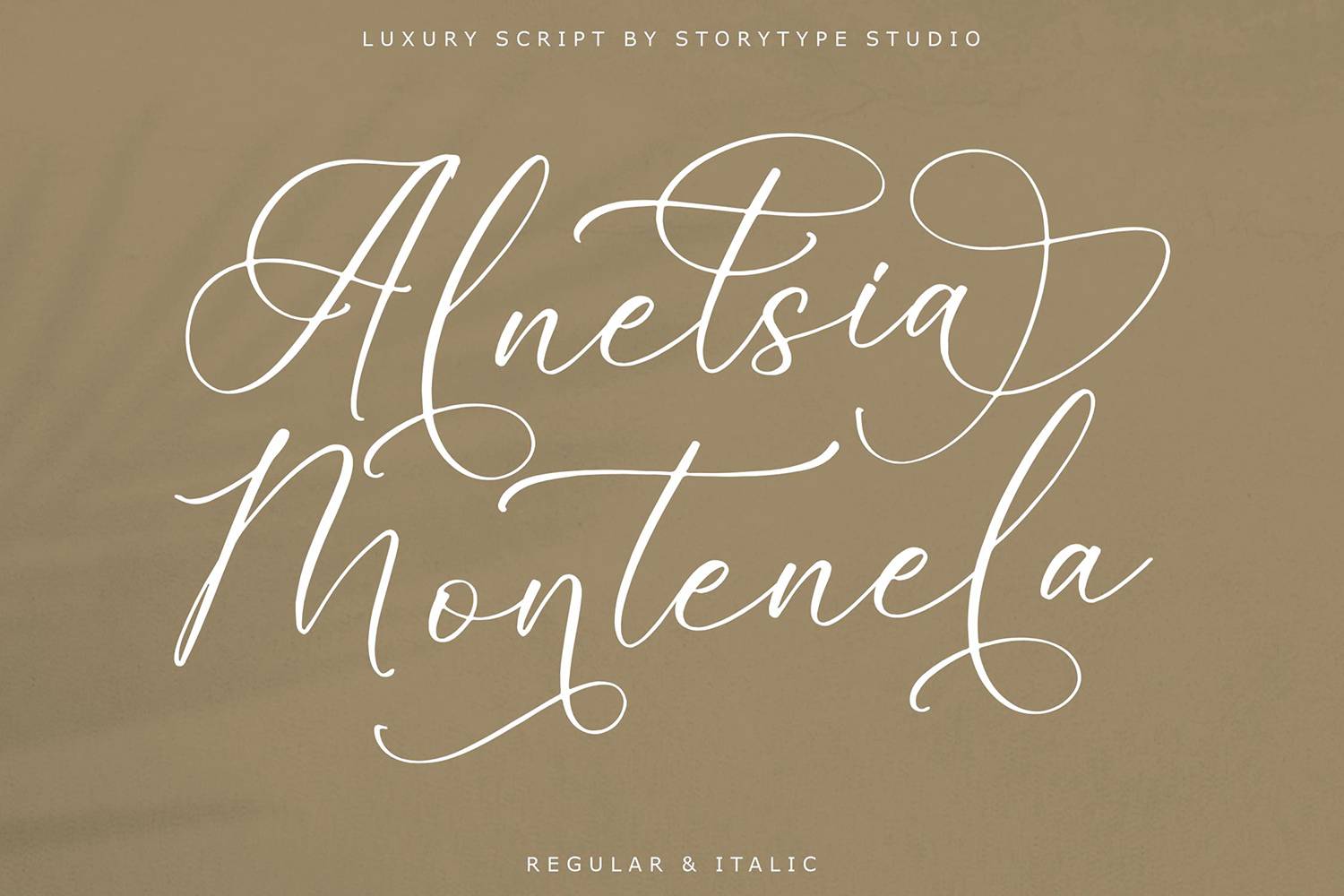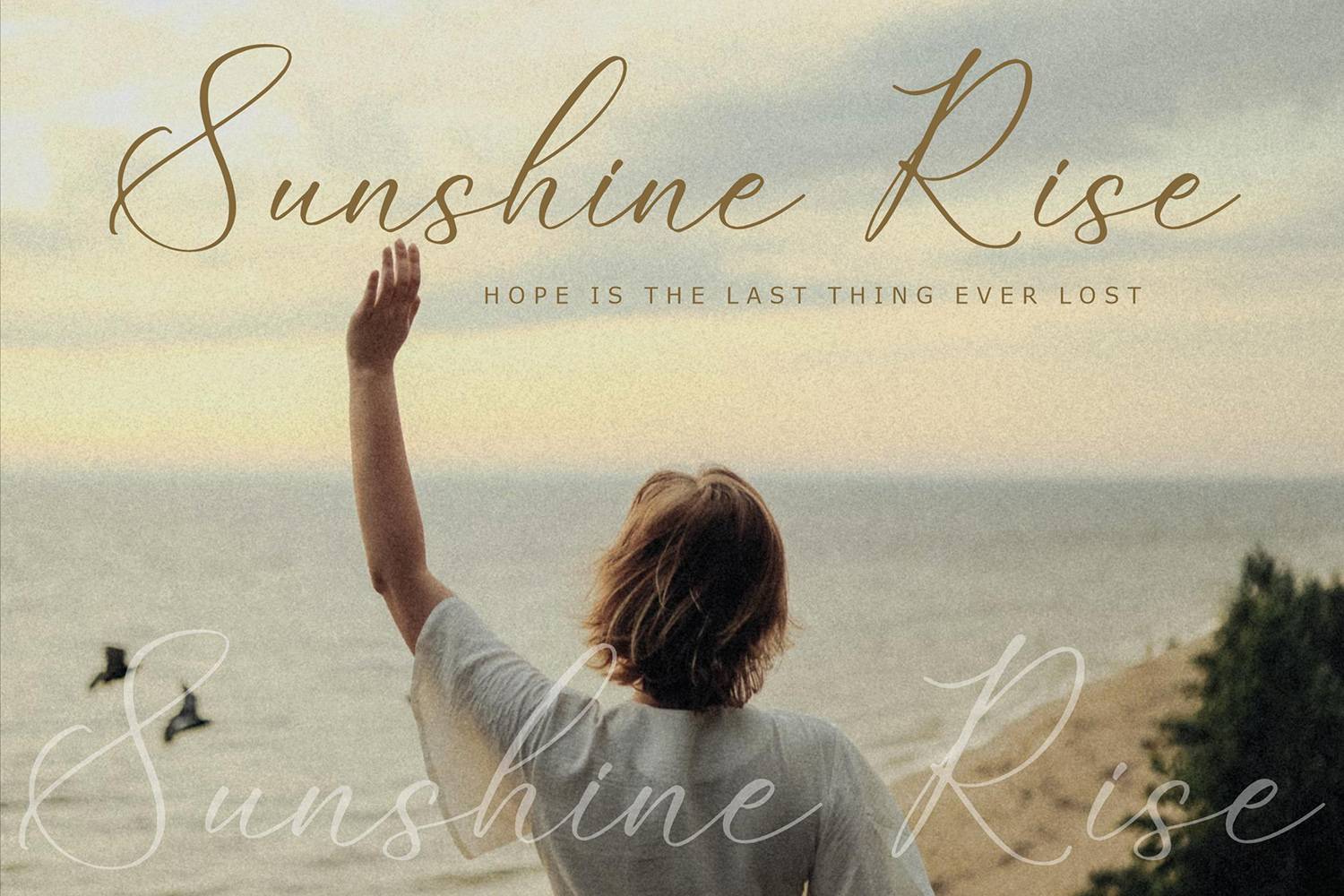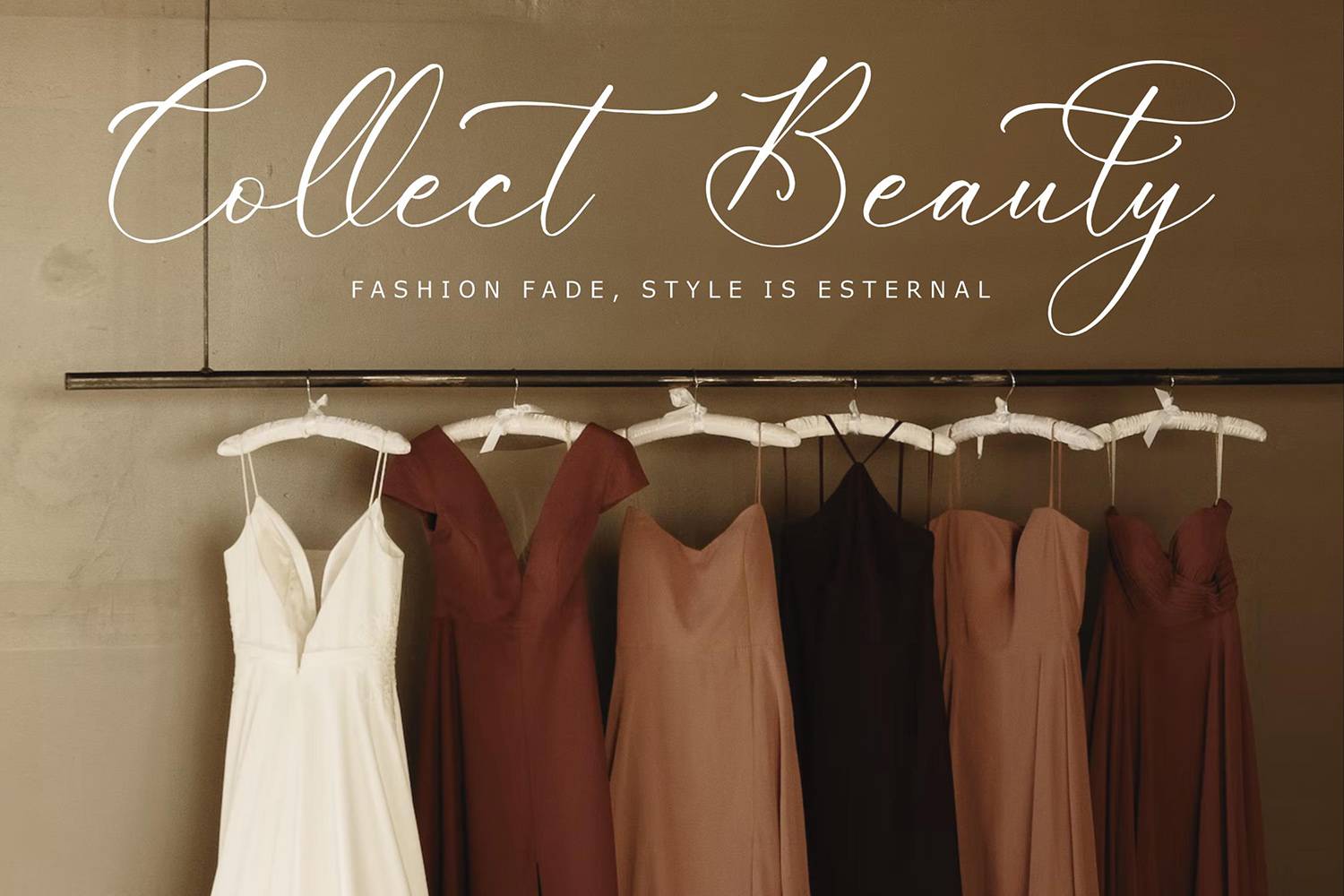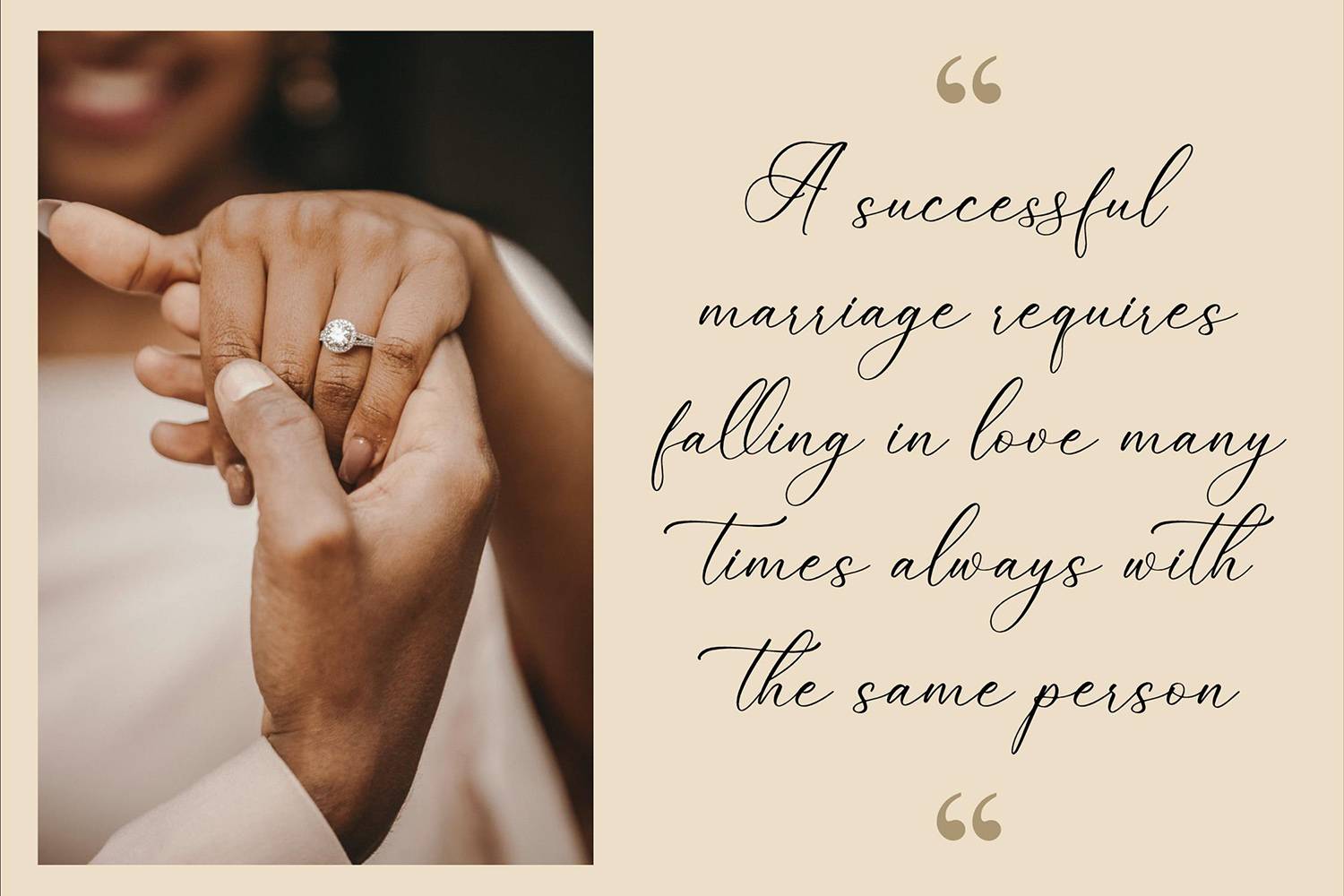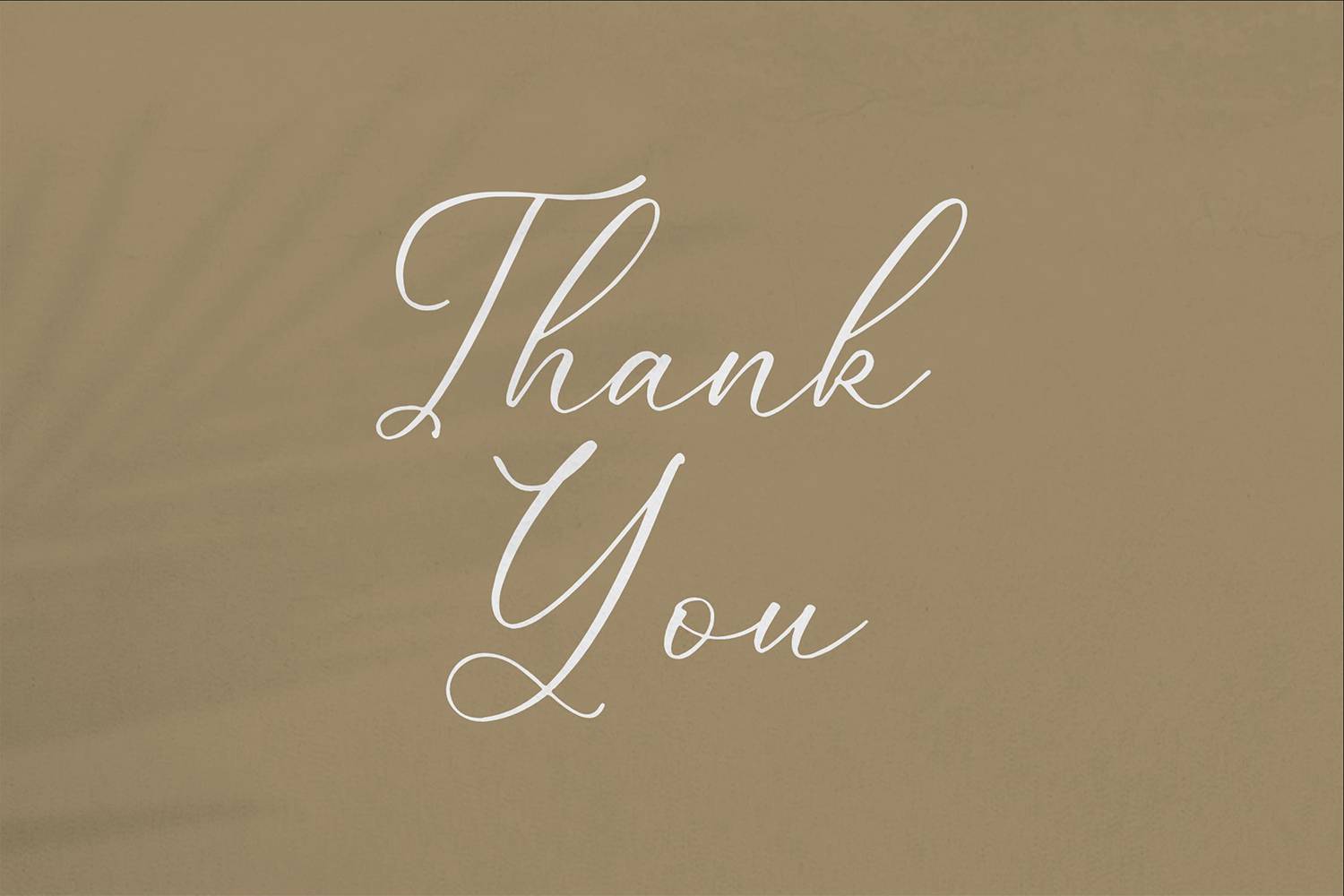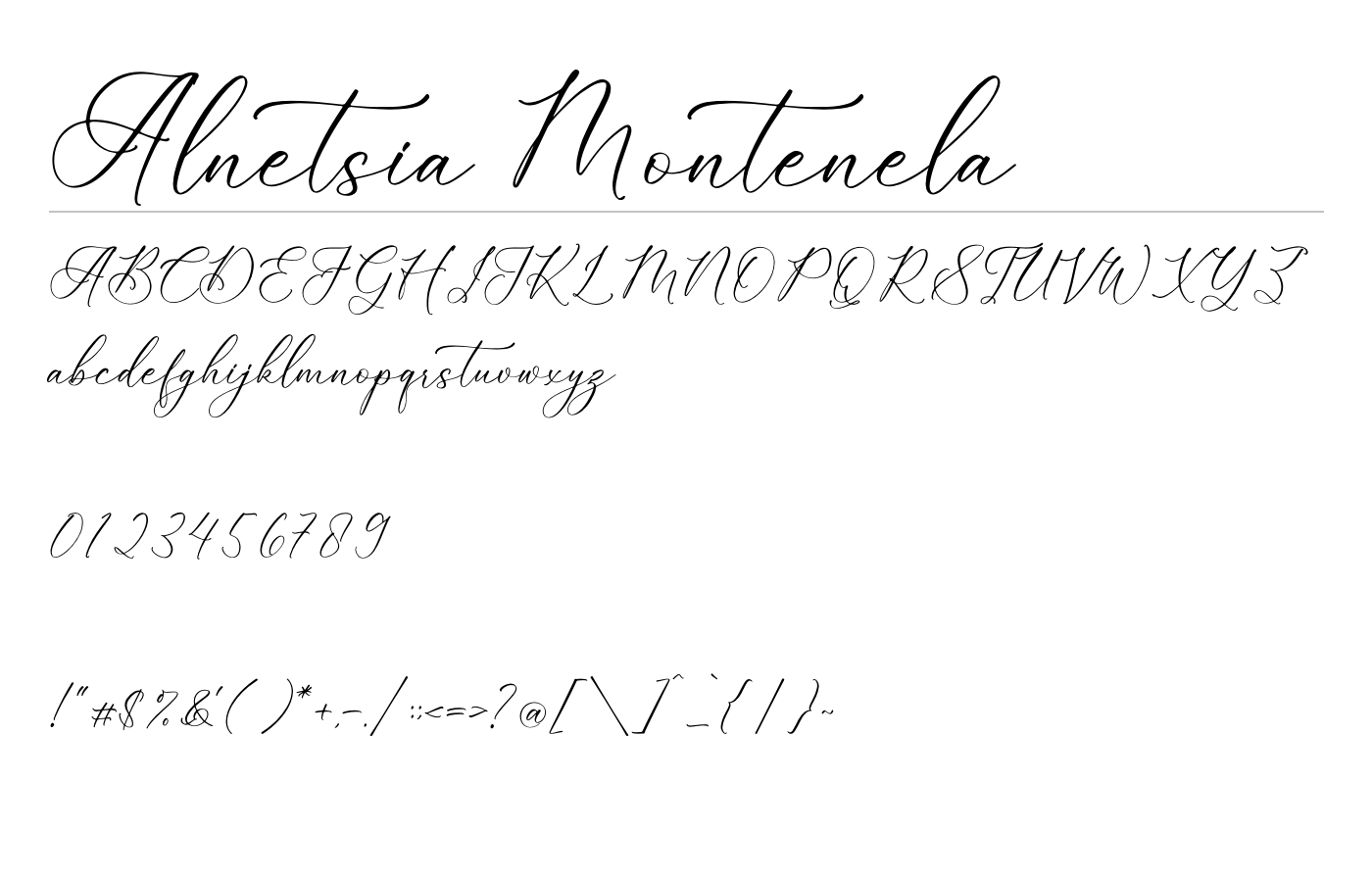
Alnetsia Montenela is an elegant, handwritten script font that features delicate, flowing strokes with a high contrast between thin and thick lines, giving it a refined and sophisticated look. Its graceful letterforms and decorative swashes make it ideal for luxury branding, wedding invitations, and upscale editorial projects where a touch of elegance and personal style is desired. This font works best in display settings such as logos and headlines, where its unique charm can truly stand out.
Alnetsia Montenela Font
About Alnetsia Montenela Font